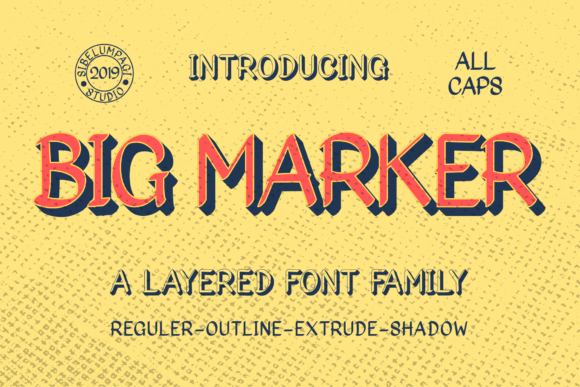
Feast your eyes on the enthralling Big Marker Font Family, your gateway to captivating designs that ooze vintage charm and timeless elegance. Step into a world where creativity knows no bounds, and your imagination takes center stage.
Dive into a font family that exudes personality and panache. With its layered structure, the Big Marker Family boasts four captivating variations, each a masterpiece in its own right. Embrace the allure of a classic look that effortlessly blends the old and the new, the familiar and the unexpected.
Unleash your inner artist and explore the boundless possibilities that await. Whether crafting logos that command attention, designing t-shirts that speak volumes, or creating pamphlets and billboards that leave a lasting impression, the Big Marker Family is your trusted companion in the realm of visual communication.
Embark on a creative journey where your designs take flight. Let the Big Marker Family transport you to an era of artistic brilliance, where every stroke of your imagination becomes a tangible reality. With its innate versatility, this font family seamlessly adapts to your creative vision, transforming ordinary concepts into extraordinary masterpieces.
Don't settle for ordinary fonts that blend into the background. Dare to stand out with the Big Marker Family, a font family that commands attention and ignites conversations. Transform your designs into captivating works of art that resonate with audiences, leaving an indelible mark on their minds.
Welcome to a font family that speaks to the heart and awakens the imagination. Let the Big Marker Family be your creative muse, inspiring you to reach new heights of design excellence. Discover the limitless potential that lies within these meticulously crafted fonts and embark on a creative odyssey that will redefine your artistic boundaries.